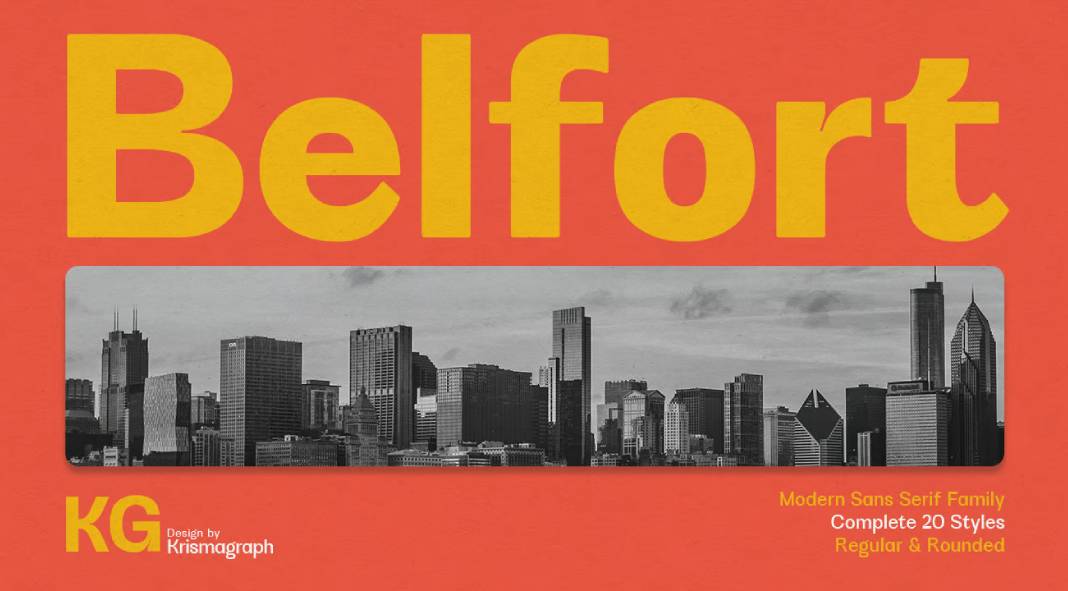
Typeface designers are forever exploring innovative ways to marry the timeless elegance of traditional fonts with the clean lines of contemporary styles. One such typeface that has captured the hearts of designers and readers alike is KG Belfort by Krismagraph.
KG Belfort is a modern sans serif font family that exudes a neo-Grotesk touch. Its unique blend of classic and contemporary design elements makes it a versatile, easily accepted font that offers a wide range of usage possibilities. This font is a true powerhouse, with a simple, bold, and strong personality, making it a must-have for any design project.
Versatility in Typography
What sets KG Belfort apart from the rest is its incredible versatility. It effortlessly adapts to a variety of design needs, thanks to its simple and bold design. Whether you’re designing a sleek, minimalist website, a sophisticated print publication, or an eye-catching poster, KG Belfort has you covered.
Two Basic Shapes, Ten Different Weights
KG Belfort boasts two fundamental shapes: upright and round. These shapes, combined with its ten different weights, allow you to experiment with a wide range of visual possibilities. The available weights include Thin, Extra Light, Light, Regular, Medium, Semibold, Thick, Extrabold, Black, and Heavy. These options provide you with the creative freedom to select the perfect style for your design, whether you want something delicate and refined or strong and impactful.
Ligatures and Alternating Letters
One of the standout features of KG Belfort is its extensive ligatures and alternates for various letters. Ligatures are a combination of two or more characters into a single, more pleasing glyph. This feature not only enhances the overall aesthetics of your typography but also adds a touch of elegance to your design.
Furthermore, the availability of alternates for several letters allows you to choose the best form of each character to achieve the desired visual balance. This level of customization is what makes KG Belfort a top choice for graphic designers and typographers.
Multilingual Support
In our increasingly globalized world, it’s essential to create content that can reach a diverse audience. KG Belfort understands this need and provides comprehensive multilingual support. This means that regardless of the language you’re working in, you can count on KG Belfort to deliver a polished and professional look.
KG Belfort by Krismagraph is more than just a typeface; it’s a versatile and sophisticated tool for graphic designers and content creators. Its modern sans-serif style, neo-Grotesk influence, and wide range of weights and characters make it an invaluable asset for any design project.